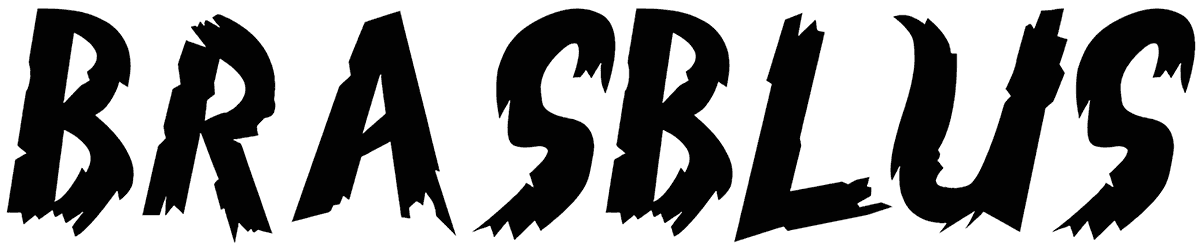
Brasblus Font
With a brush texture face, your design will be catchy, especially if it is kinda ominous, you may be able to use it in various plots. Being accessible in two versions gives Brasblus the opportunity to be more adaptable to layouts, even without offering lowercase and most of the punctuation marks. This horror font can be a cool show for posters, games, festival designs, etc.